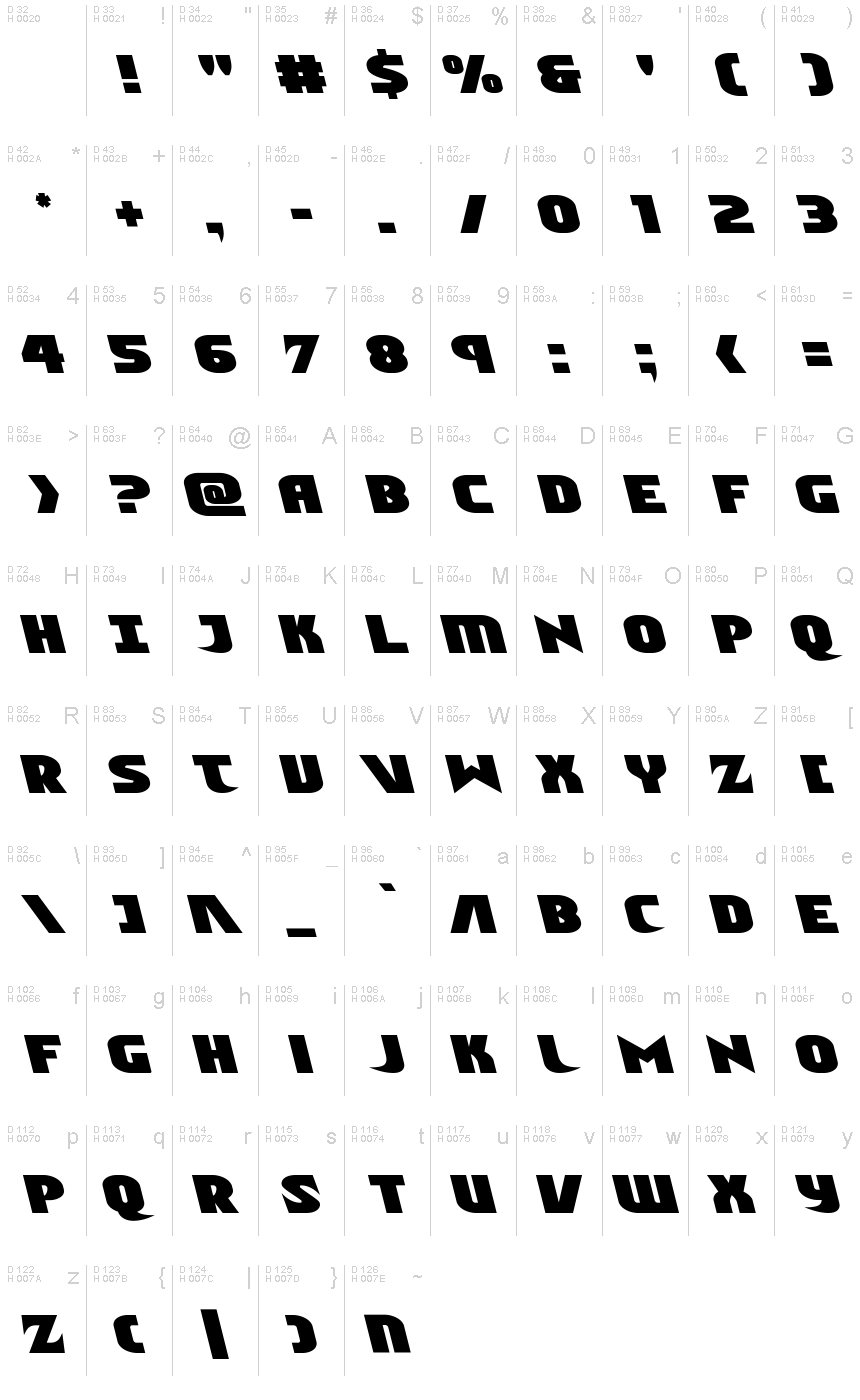
Ninja Garden Semi-Leftalic
Ninja Garden Semi-Leftalic font from the Ninja Garden family commands attention with its bold, techno-inspired design. The font exudes a modern, dynamic aesthetic characterized by sharp angles and striking slants that convey movement and energy. Its robust presence makes it perfect for creating impactful headlines or captivating logos.
The unique characteristics of this display font—such as its assertive stance and dramatic flair—make it well-suited for a variety of design contexts including gaming graphics, tech branding, and avant-garde posters. Whether used in digital environments or print media, Ninja Garden Semi-Leftalic delivers a distinctive style that resonates with contemporary audiences while maintaining versatility across various applications.